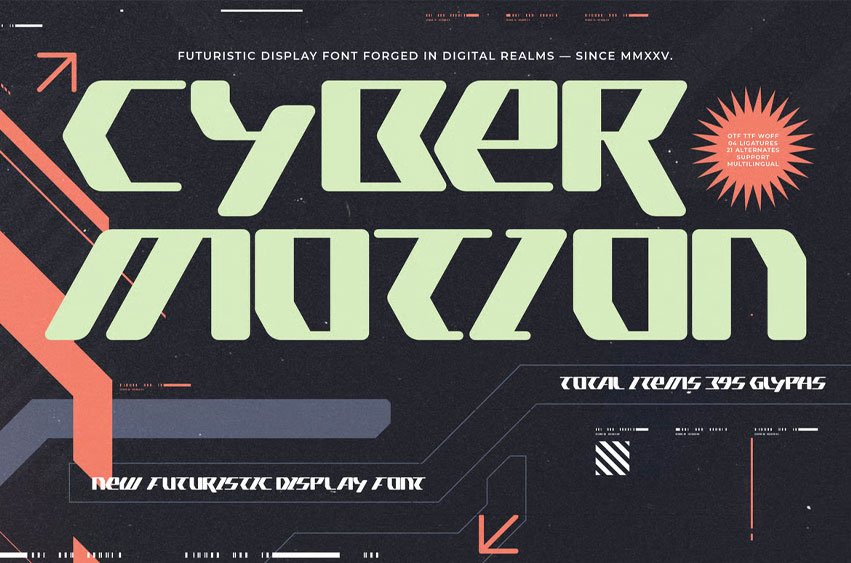
Cyber Motion Font New Futuristic Display Font , Cyber Motion is a bold futuristic display font built with sharp modular geometry, sci-fi angles, and high-tech digital aesthetics. Inspired by cyberpunk interfaces and advanced machine design, this typeface delivers a strong, modern identity perfect for gaming visuals, tech branding, UI concepts, experimental posters, and cutting-edge digital projects.
Its aggressive structure and forward-leaning shapes create a fast, energetic, and ultra-modern look. Including 4 ligatures, 21 alternates, and full multilingual support, Cyber Motion gives designers flexibility to build striking titles, immersive HUD graphics, esports branding, tech event visuals, and cyber-themed motion graphics. Its futuristic personality makes it the ideal font for creators who want strong sci-fi impact and standout digital style.
• Uppercase and Lowercase
• Numerals
• Punctuations (OpenType Standard)
• Accents (Multilingual Characters)
• Ligatures and Alternative Style Stylistic Set